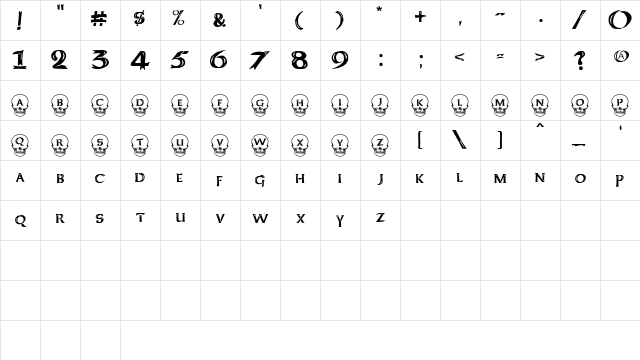
Grey Skull Regular
Design Context for Grey Skull Typeface
Grey Skull is a composed and adaptable typeface that performs quietly and consistently across a wide range of design contexts.